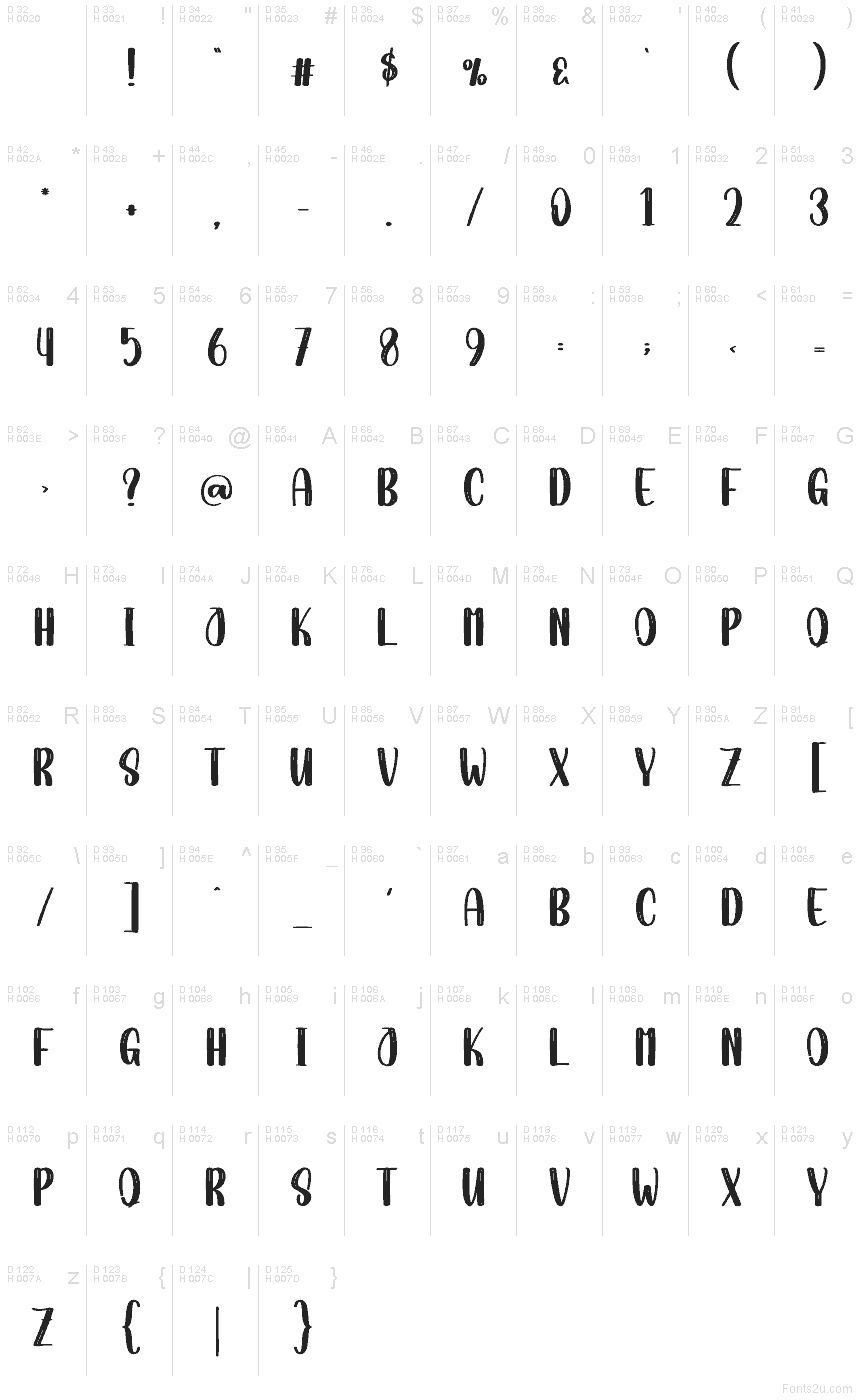
Queen Winter
Queen Winter font by Scratchones is a display font with artistic flair and a textured appearance. This condensed typeface is densely packed, unlike the unique characters and creativity that explodes off the page at first glance. It is an expressive rustic vintage-inspired font that engages visual artists through its simple nature.